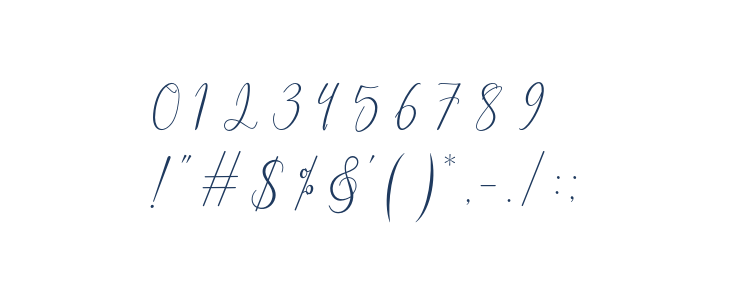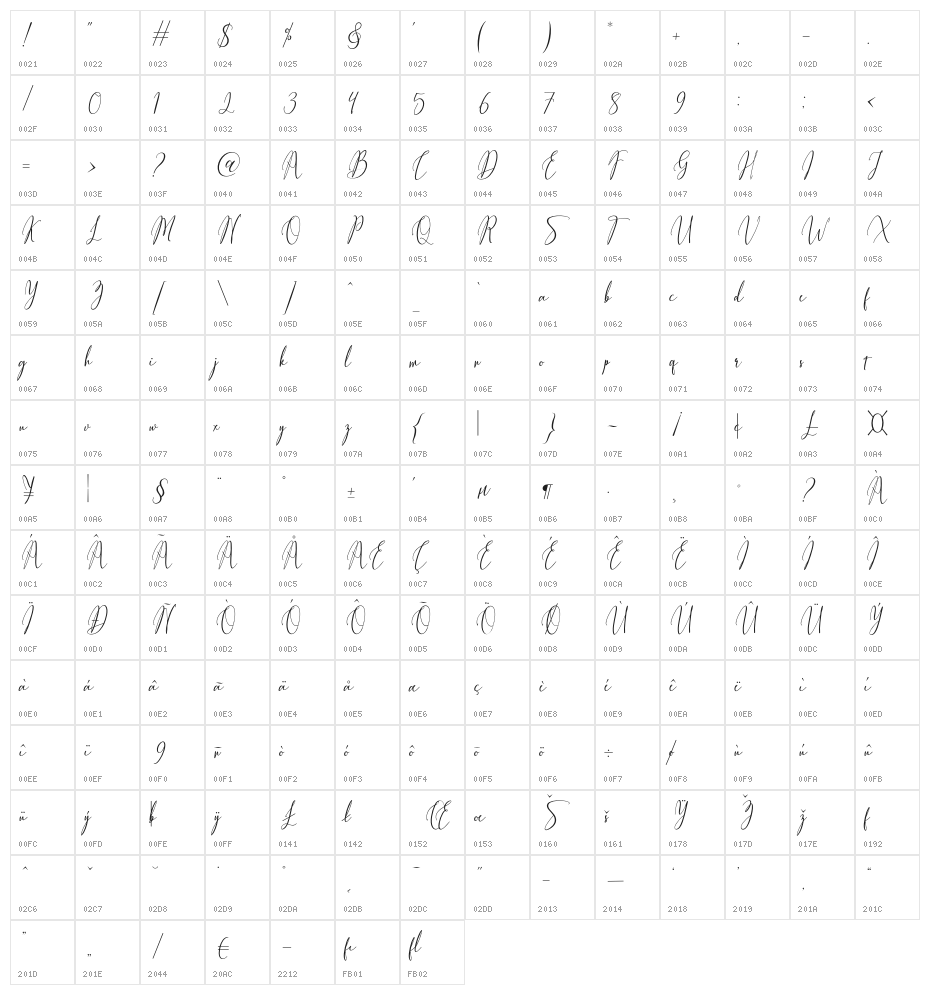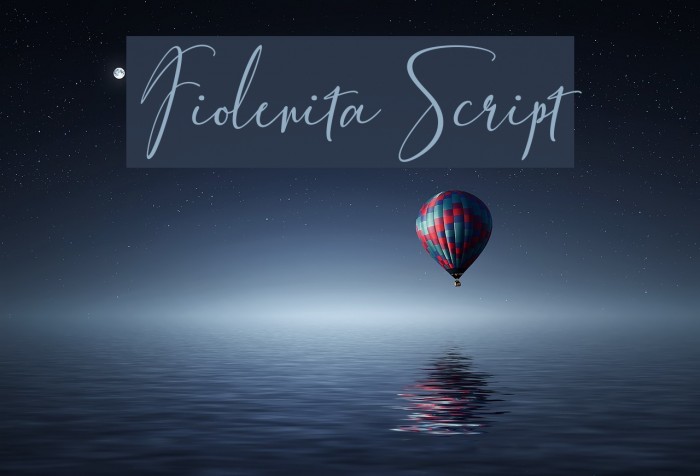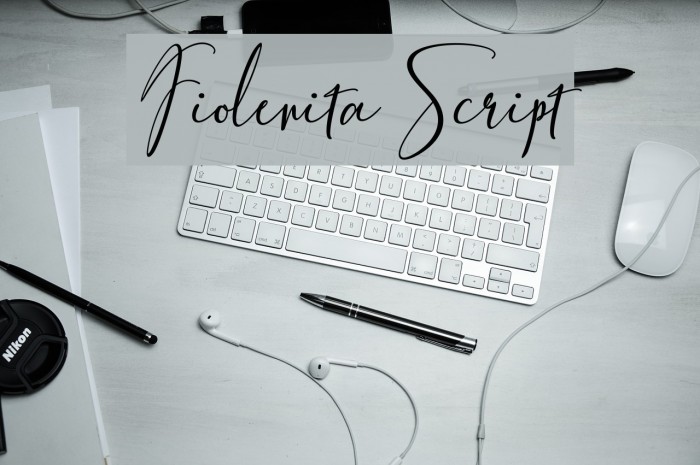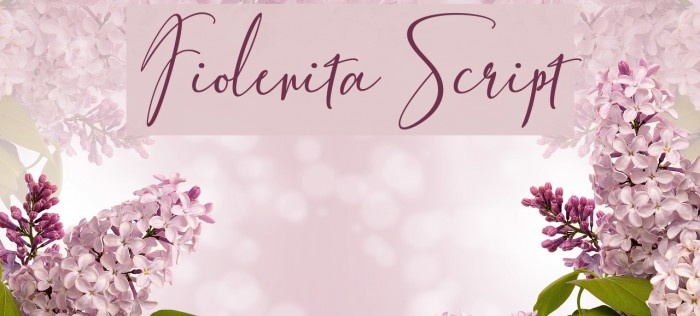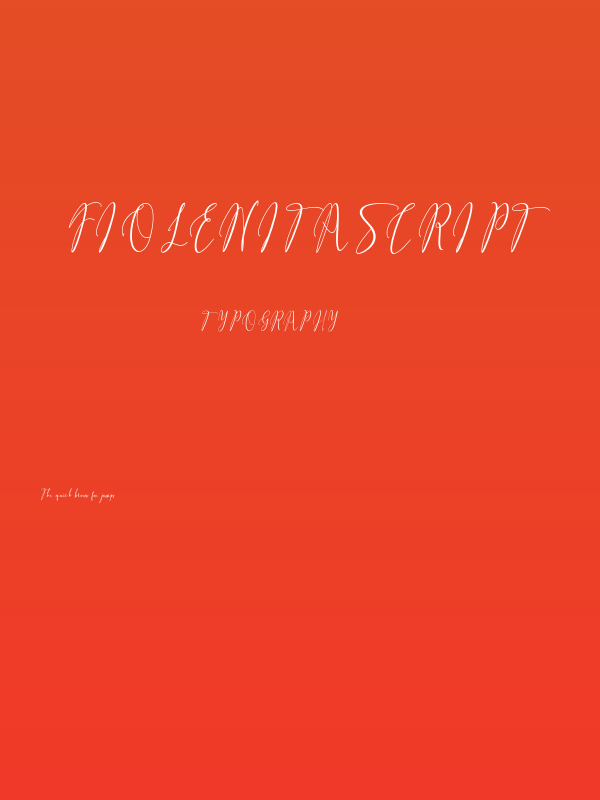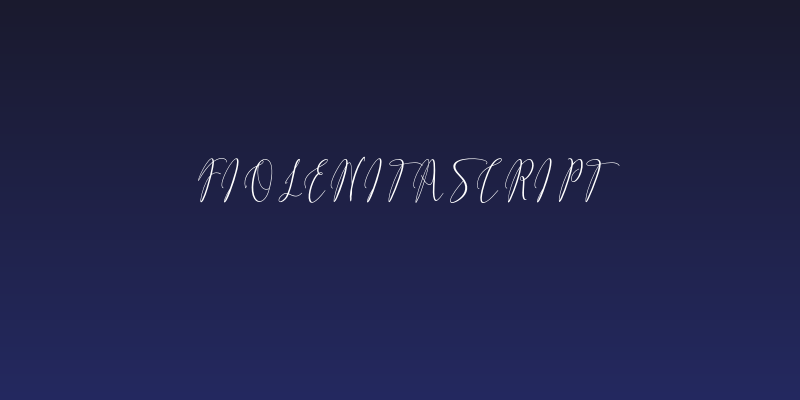
FiolenitaScript Font
FiolenitaScript Description
This font exudes elegance and sophistication with its flowing, cursive script style. The letters are intricately designed with smooth curves and delicate strokes, giving it a refined and graceful appearance. The uppercase letters are particularly ornate, featuring elaborate loops and swirls, while the lowercase letters maintain a consistent fluidity. The numerals are equally stylish, complementing the overall aesthetic. This font is perfect for adding a touch of class to any project, whether it's for invitations, branding, or decorative purposes. Its artistic flair makes it stand out, yet it remains legible and versatile.
| Proposed Projects | Ideal for wedding invitations, luxury branding, greeting cards, and decorative artwork. |